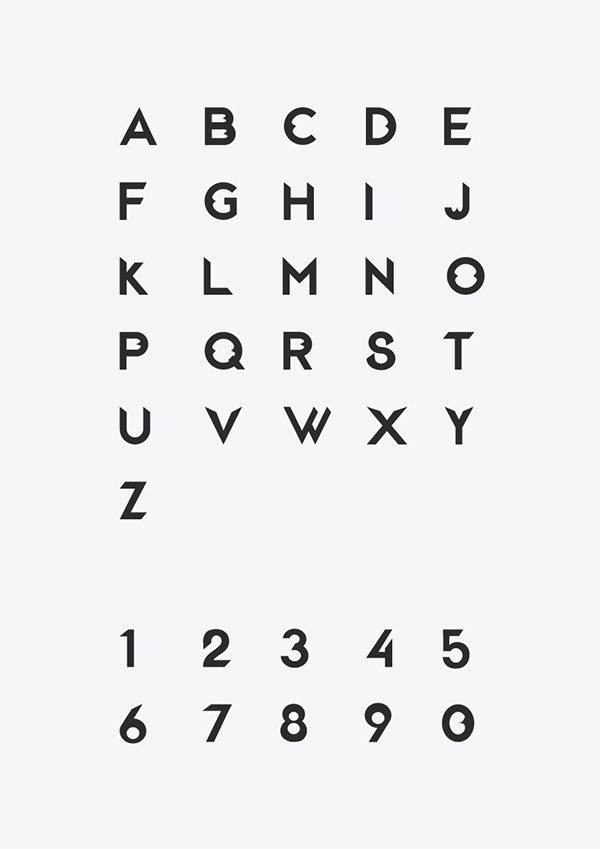
Zodiaclaw Font
The Font is a new typeface that inspired by the lion claws. I designed this font for those who want to be different. Zodiaclaw is a luxury font you can use it as product title or logo. With some old classic european touches. Zodiaclaw is a humanist typeface that is based on traditional calligraphic forms, but with some new features in its shapes and strokes that provide a more open, elegant and actual look. I hope you like it.  By Zaher Almajed.